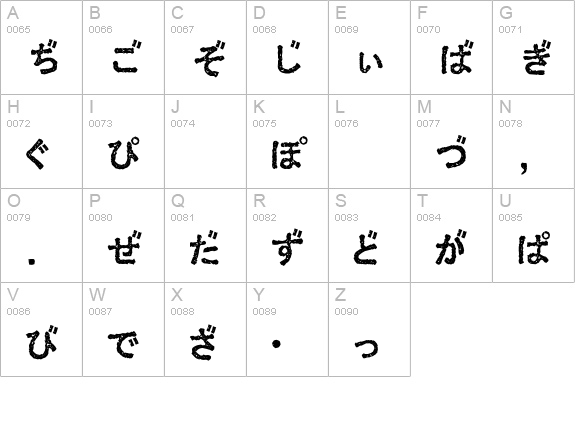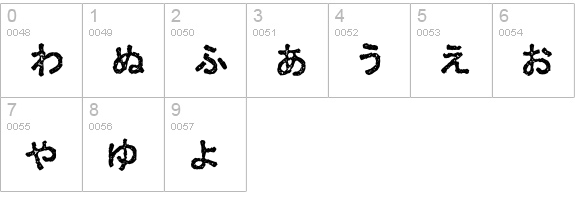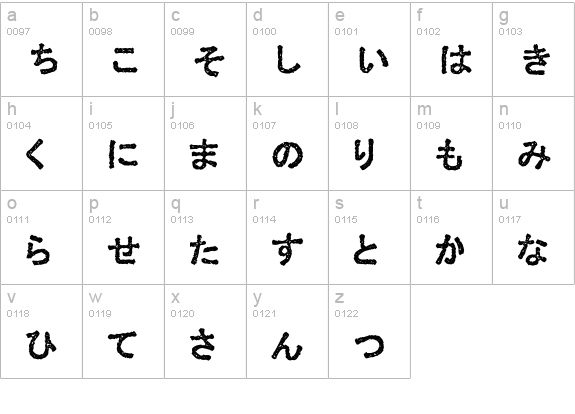
Ex Hira Damaged Font Details
Ex Hira Damaged font is a unique and striking typeface that exudes a sense of raw energy and edgy style. With its distressed and damaged appearance, this font adds a touch of grunge and urban flair to any design project. The irregular lines and rough edges give Ex Hira Damaged font a rebellious and unconventional feel, making it perfect for creating eye-catching headlines, posters, album covers, and more. What's even better is that Ex Hira Damaged font is available for free download at FontsMarket.com. This means that you can easily add this bold and dynamic font to your collection without any cost. Don't miss out on the opportunity to enhance your designs with the gritty charm of Ex Hira Damaged font – download it now and let your creativity run wild!